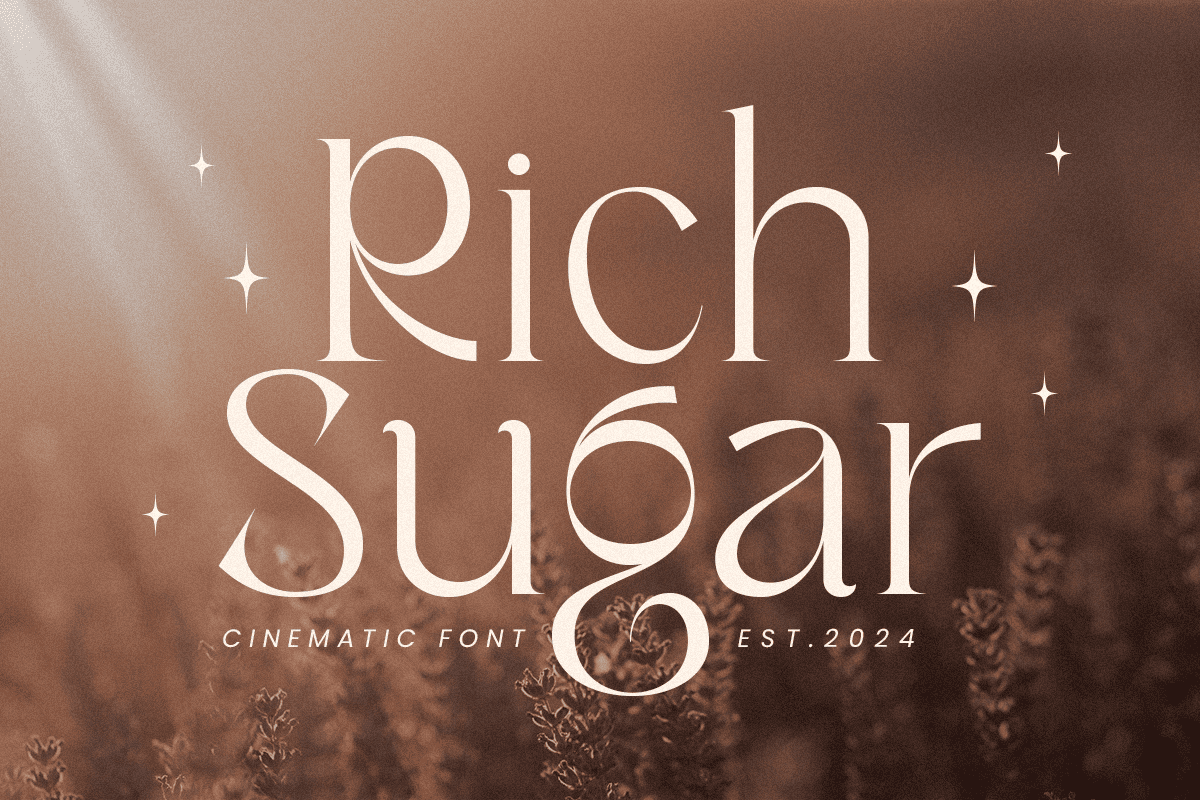
Rich Sugar
-Cinematic FontRich Sugar is a luxurious cinematic font designed to elevate your high-end design projects with elegance and sophistication. Inspired by the opulence of luxury brands and the captivating allure of cinema, Rich Sugar combines modern aesthetics with timeless class. This font is perfect for creating stunning logos, refined branding materials, and stylish designs that exude luxury.
The Story Behind Rich Sugar:
Rich Sugar was crafted with the idea of combining the richness of luxury design with the captivating appeal of cinematic style. The font draws inspiration from the elegance of premium brands and the visual grandeur of classic films. Whether you're designing a high-end logo, crafting branding for a premium product, or creating cinematic posters, Rich Sugar delivers a perfect blend of style and grace.
Rich Sugar Font Features:
Elegant Design: Perfect for luxury branding, cinematic posters, and high-end projects.
Versatile Usage: Ideal for logos, branding, headlines, and stylish designs.
High Legibility: Ensures your message is communicated effectively with clear and sharp lettering.
Cinematic Appeal: Combines modern aesthetics with a vintage touch to create a unique and memorable look.
Inspirational Previews: Includes sample designs to spark your creativity and show the font's potential.
Elevate your design projects with Rich Sugar and bring a touch of luxurious cinematic style to your work.